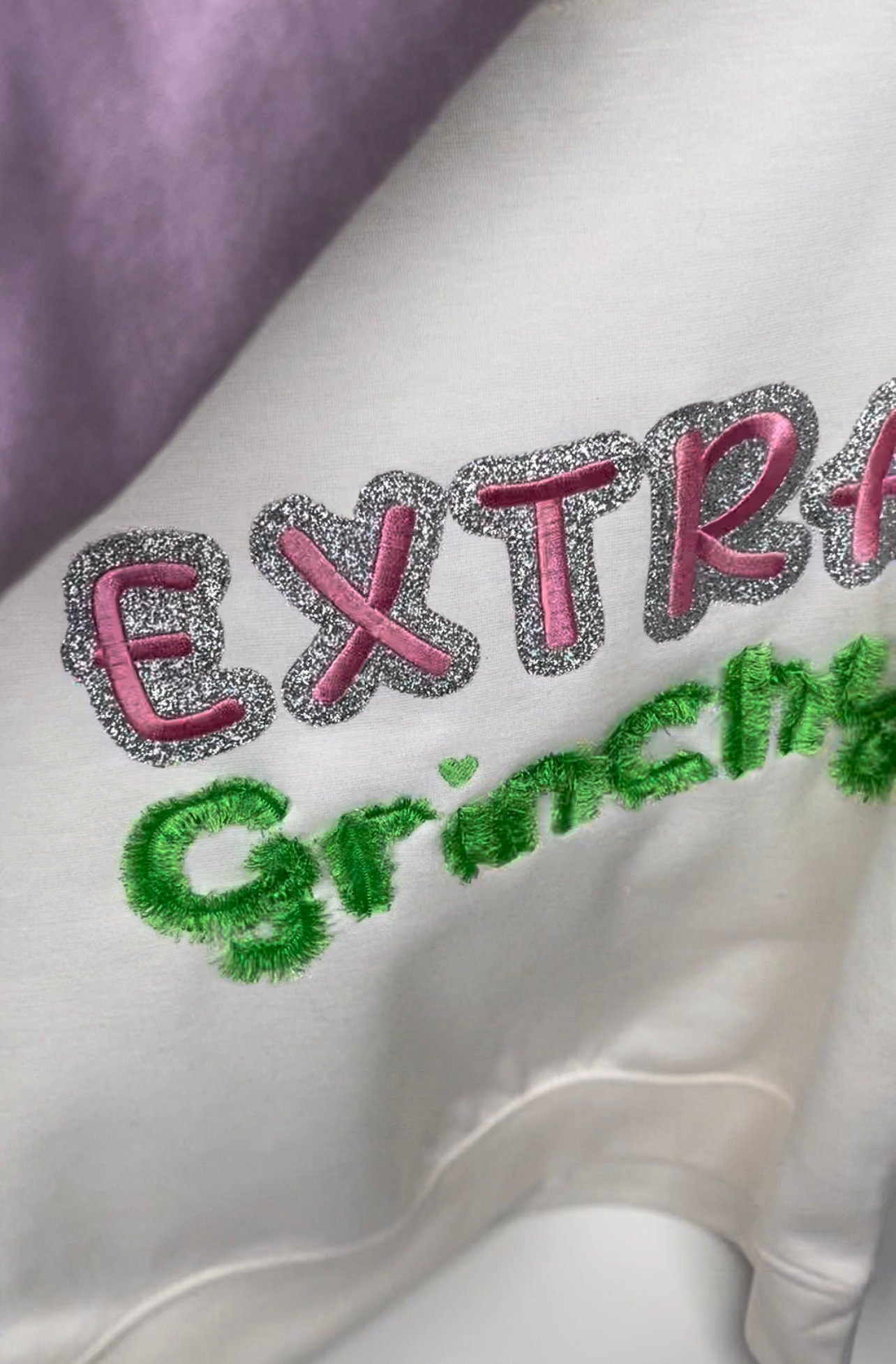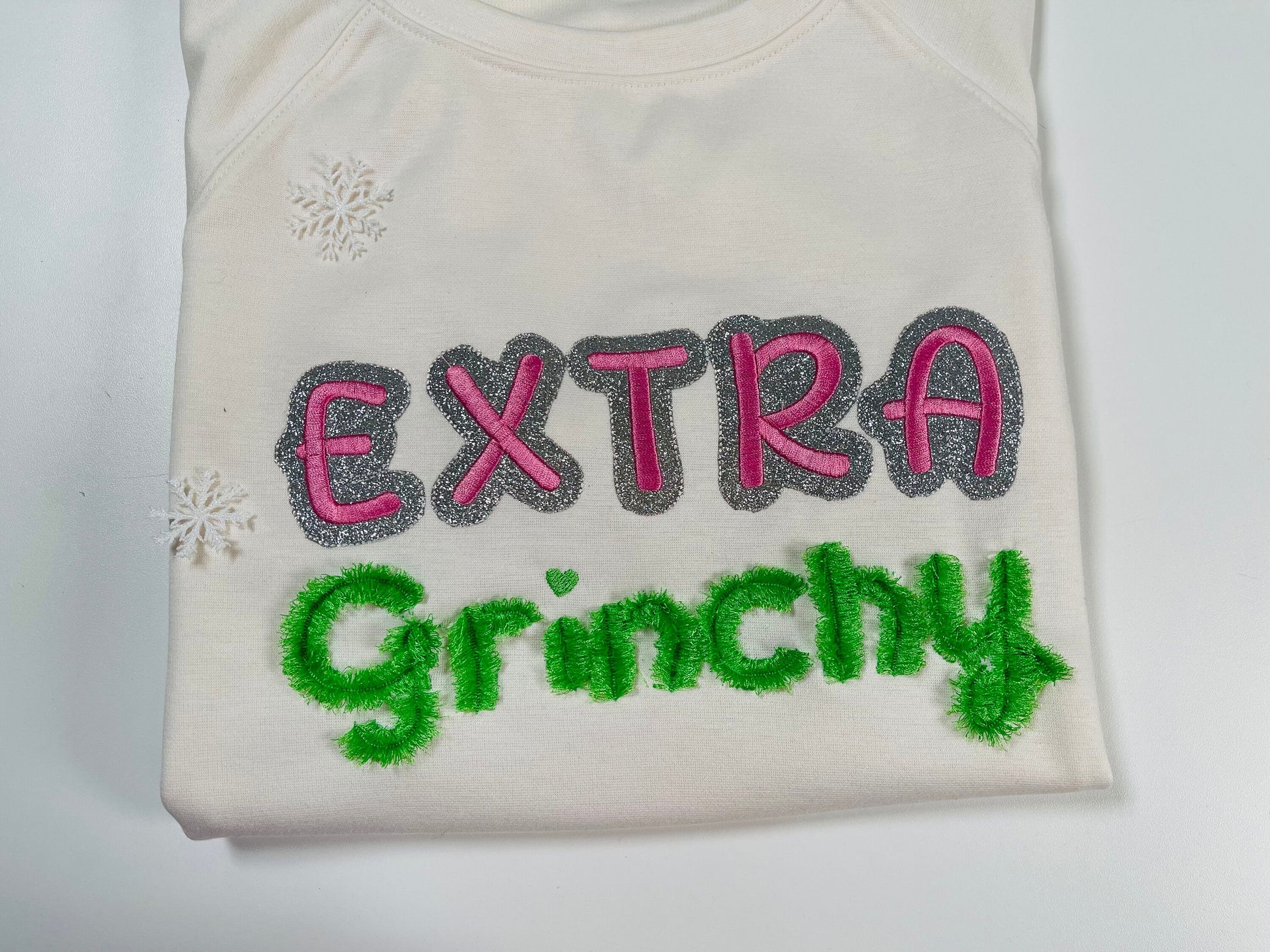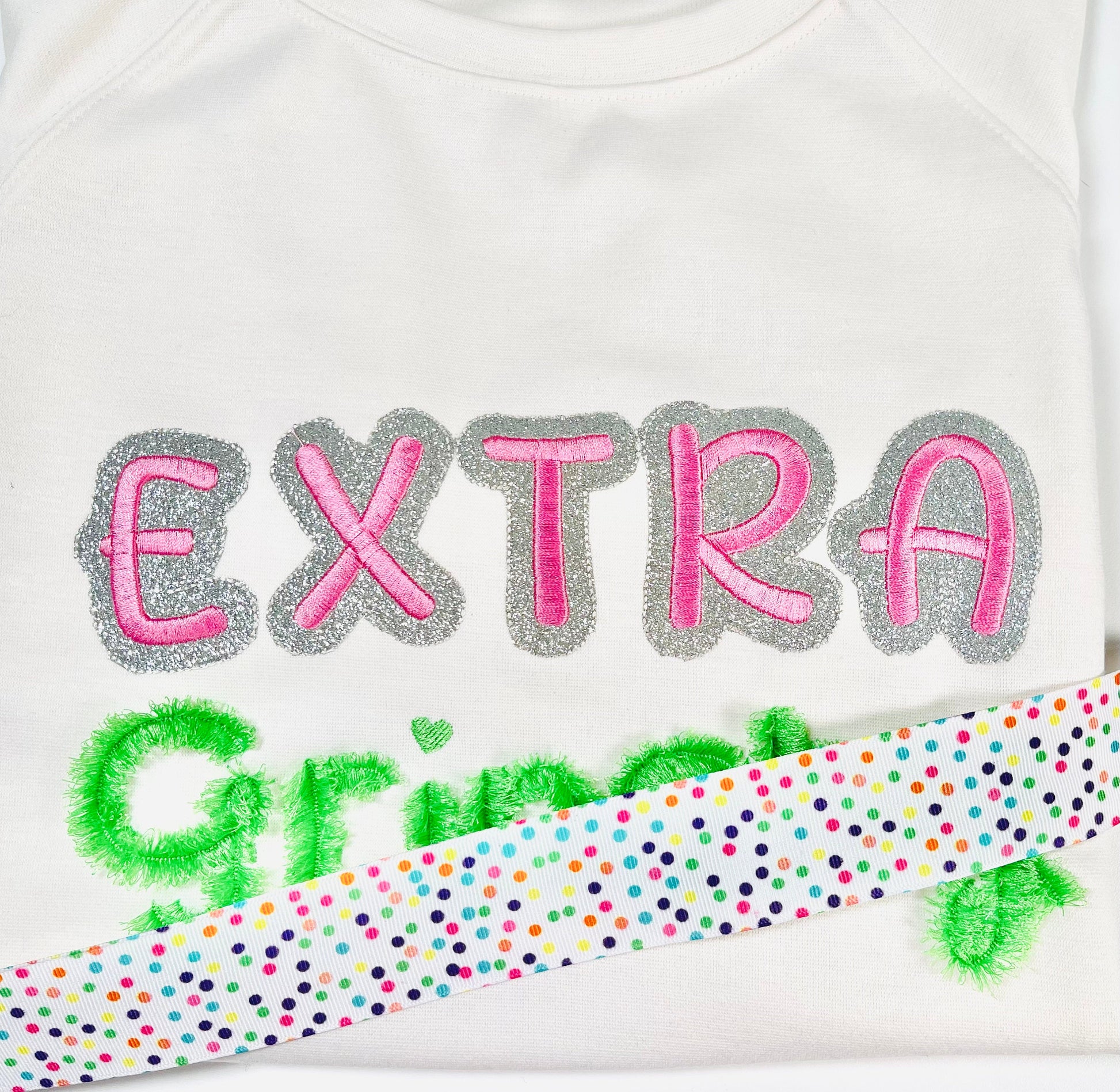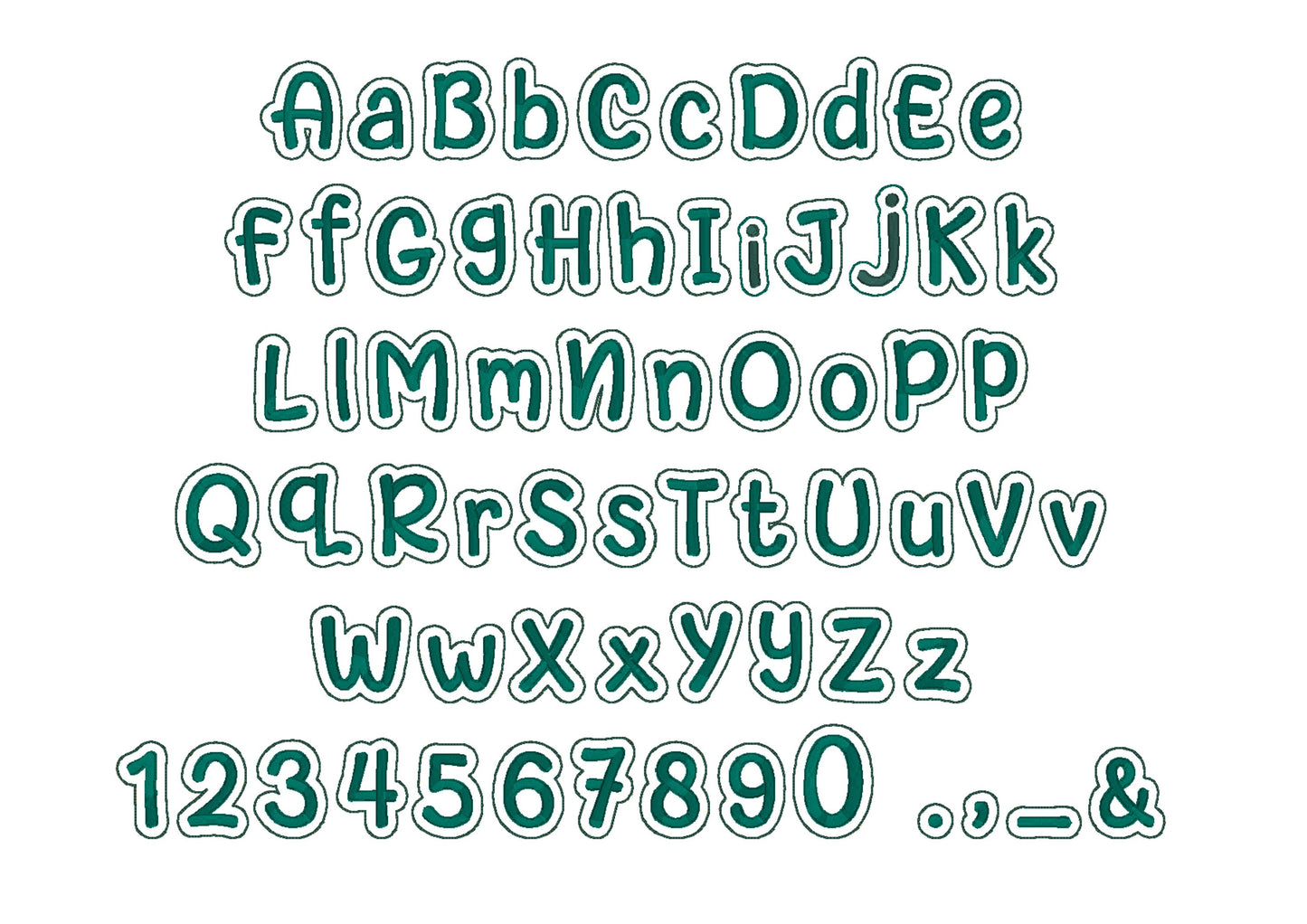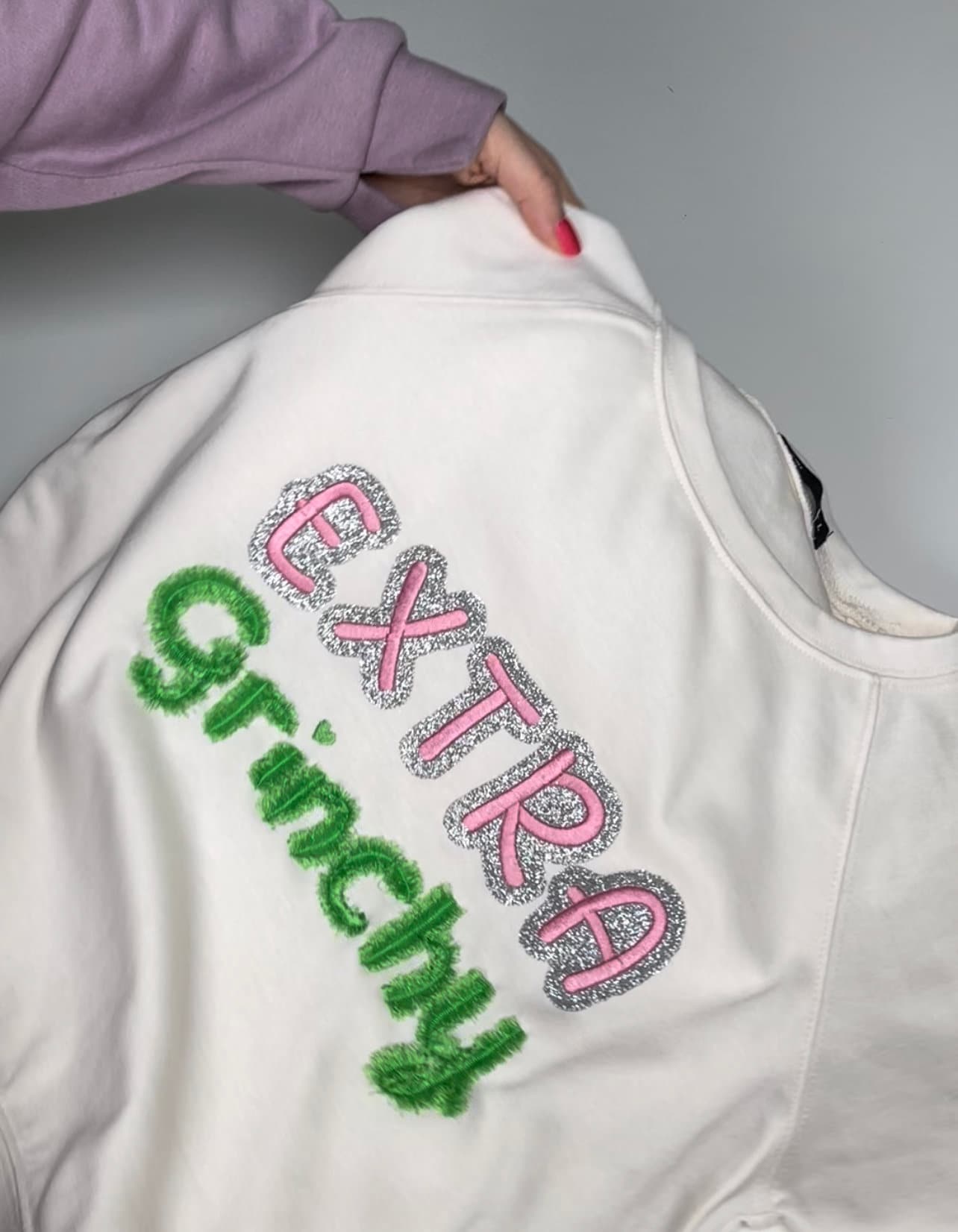
Or click to open the linkA glitter faux patch applique font with a satin stitch edge. Sparkly for names, monograms, jackets and bags.
Uppercase and lowercase letters, numbers 0 to 9 and punctuation, in six sizes: 0.9, 1.1, 1.4, 1.8, 2.1 and 2.5 inches. Stitch each letter as applique with glitter fabric for a patch look.